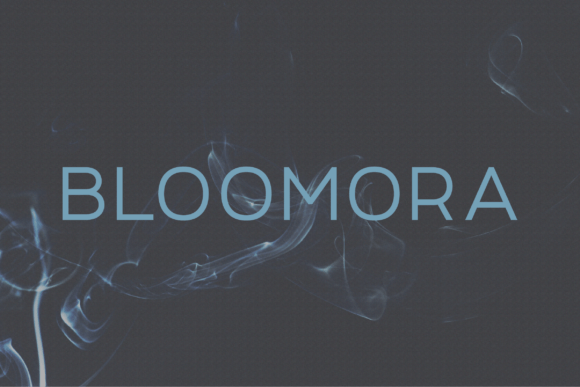
Bloomora Font: Elevate Your Design with a Modern, Classy Sans Serif Typeface
In the world of typography, fonts play a crucial role in conveying messages, evoking emotions, and creating lasting impressions. Among the numerous typefaces available, the Bloomora Font stands out as a modern, classy sans serif typeface that has captured the attention of designers and typography enthusiasts alike. In this article, we’ll delve into the features, versatility, and applications of the Bloomora Font, exploring how it can elevate your designs and take your creative projects to the next level.
Key Features of Bloomora Font
- Uppercase Characters: The Bloomora Font features a comprehensive set of uppercase characters, ensuring that your designs exude professionalism and sophistication.
- Numbers 0-9: The font includes a range of numerals, from 0 to 9, allowing you to create numerical designs, such as invoices, receipts, or promotional materials.
- Punctuation and Symbols: With a variety of punctuation marks and symbols, the Bloomora Font provides the flexibility to create complex designs, such as quotes, advertisements, and social media graphics.
The Versatility of Bloomora Font
The Bloomora Font is an extremely versatile typeface, suitable for a wide range of applications. Its modern, classy design makes it perfect for:
- Logos: Create professional, eye-catching logos that represent your brand’s identity and values.
- Weddings and Invitations: Use the Bloomora Font to design elegant wedding invitations, save-the-date cards, and other ceremonial materials.
- Quotes and Advertisements: Add a touch of sophistication to your quotes, ads, and promotional materials, making them more engaging and memorable.
- Print and Magazines: The Bloomora Font is ideal for print designs, such as magazines, brochures, and flyers, ensuring that your content stands out.
Design Tips for Using Bloomora Font
To get the most out of the Bloomora Font, consider the following design tips:
- Pair with Other Fonts: Experiment with pairing the Bloomora Font with other typefaces to create visually appealing contrast and hierarchy.
- Adjust Font Sizes: Play with font sizes to create emphasis and guide the reader’s attention through your design.
- Color Scheme: Choose a color scheme that complements the modern, classy feel of the Bloomora Font, ensuring consistency across your design.
Typography Best Practices with Bloomora Font
To ensure that your designs using the Bloomora Font are effective and aesthetically pleasing, keep in mind the following typography best practices:
- Legibility: Ensure that your text is legible, even at smaller font sizes, to guarantee readability.
- Line Height and Spacing: Adjust line height and spacing to create a clear, uncluttered design that facilitates easy reading.
- Alignment and Proximity: Use alignment and proximity to create a cohesive design, grouping related elements together.
Inspiration and Examples
In conclusion, the Bloomora Font is a modern, classy sans serif typeface that offers versatility, elegance, and sophistication. With its comprehensive character set, range of applications, and design flexibility, it’s an excellent addition to any designer’s toolkit. Whether you’re creating logos, wedding invitations, quotes, or advertisements, the Bloomora Font is sure to elevate your designs and leave a lasting impression.